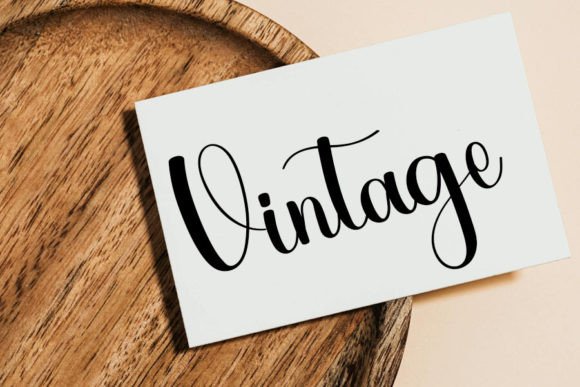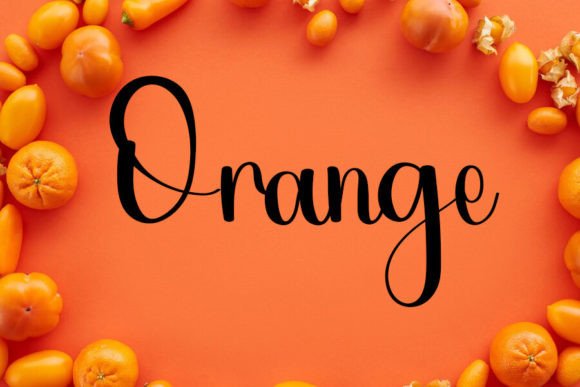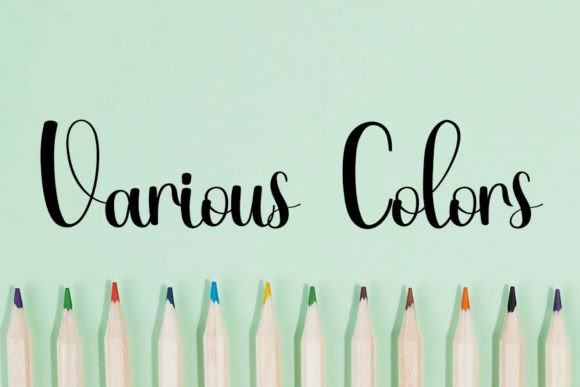
The Boho Font: A Delicate, Elegant, and Flowing Handwritten Beauty
I’ll never forget the moment I stumbled upon the Boho font while working on a whimsical wedding invitation project. My client wanted a design that exuded elegance and playfulness, but I was struggling to find the perfect font to bring it all together. That’s when I discovered Boho – a delicate, elegant, and flowing handwritten font that instantly captured the essence of the project. In this article, I’ll share my love for Boho, its features, and how to make the most of it in your designs.
An Honest Review of Boho Font
What I Love About Boho ✨
- 💫 Delicate and elegant strokes that add a touch of sophistication to any design
- ✅ Well-balanced characters that ensure perfect harmony in your typography
- 🌈 A versatile font that matches a wide pool of designs, from whimsical to minimalist
- 🎨 Beautifully crafted to evoke an emotional response and connect with your audience
While Boho is an exceptional font, there are a few things to keep in mind:
- 🤔 Limited use of uppercase letters, which may require creative workarounds for emphasis
- ⚠️ May not be the best choice for body text due to its elegant, cursive nature
One of the standout features of Boho is its support for OpenType features, including ligatures, stylistic alternates, and glyphs. These features allow you to add a personal touch to your typography, creating a more unique and eye-catching design.
The Backstory of Boho Font
Boho was crafted with love by a talented type designer who aimed to create a font that would evoke emotions and bring a touch of elegance to any design. Inspired by traditional calligraphy and handwritten scripts, Boho is a beautiful blend of classic and modern elements.
Q: What makes Boho font unique?
A: Boho’s delicate strokes, well-balanced characters, and elegant feel make it a standout font for designs that require a touch of sophistication.
Q: Is Boho suitable for body text?
A: While Boho is an elegant font, it’s best suited for headings or titles due to its cursive nature. For body text, consider a more readable font.